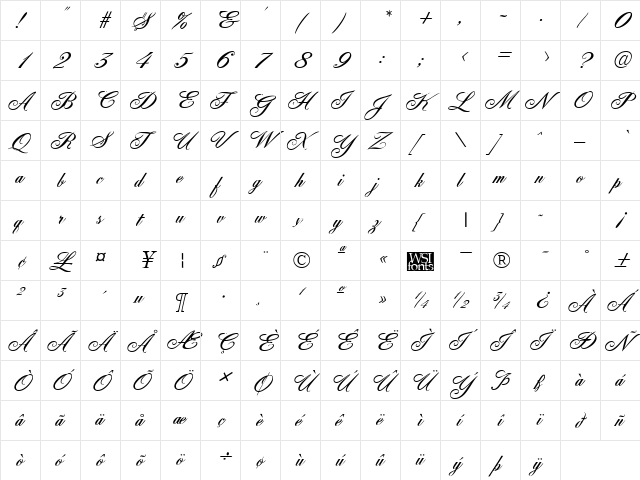
FleurishScript Regular
Design Context for FleurishScript Typeface
FleurishScript brings a calligraphic fluidity to the page — its connecting strokes and expressive curves give it an unmistakably human quality.
Font Pairing: Combine FleurishScript with a simple geometric sans for maximum contrast — the tension between flowing curves and clean structure is a classic typographic pairing.
Pro Tip: Use FleurishScript for short runs of text — names, titles, or taglines. Extended body copy in script faces tires the eye quickly.